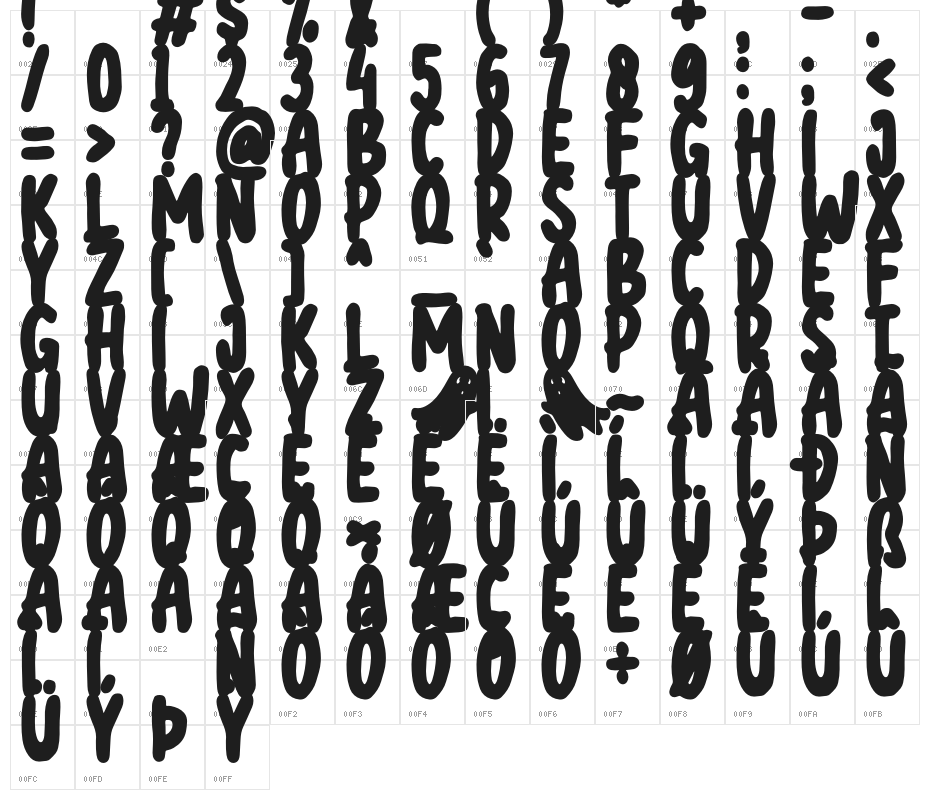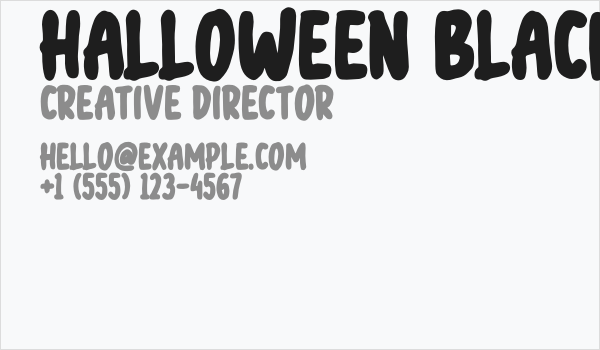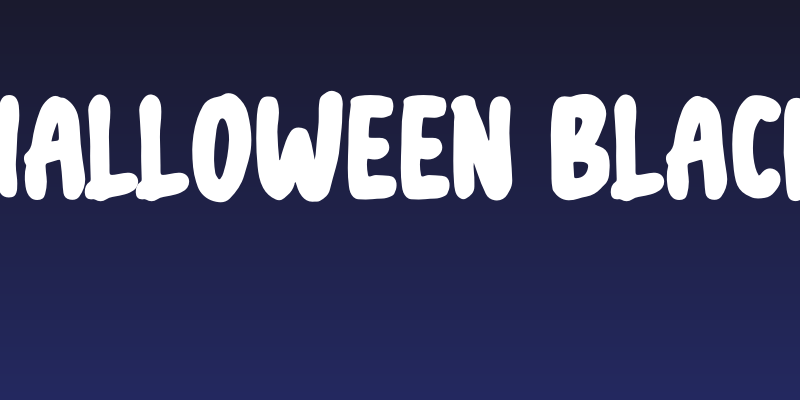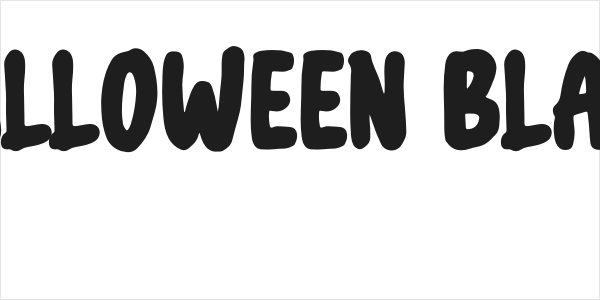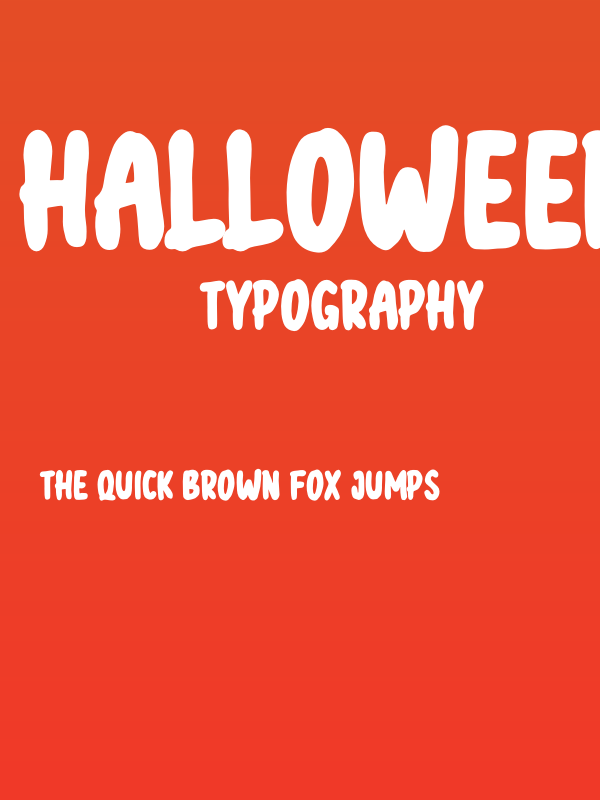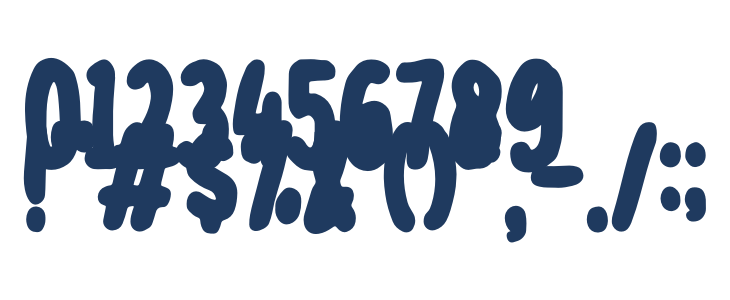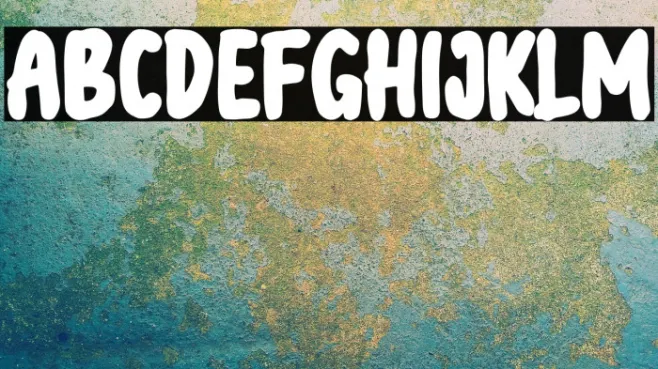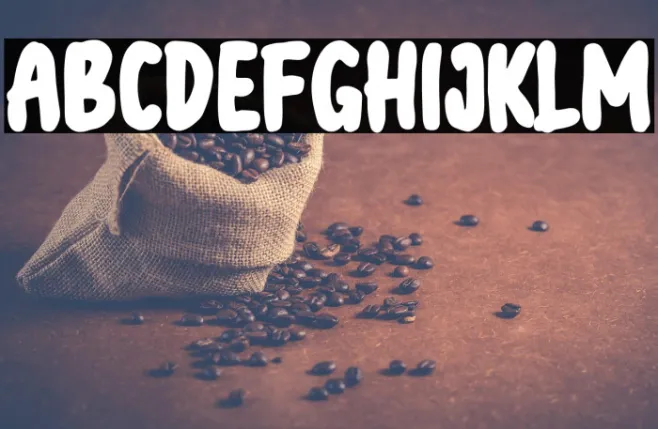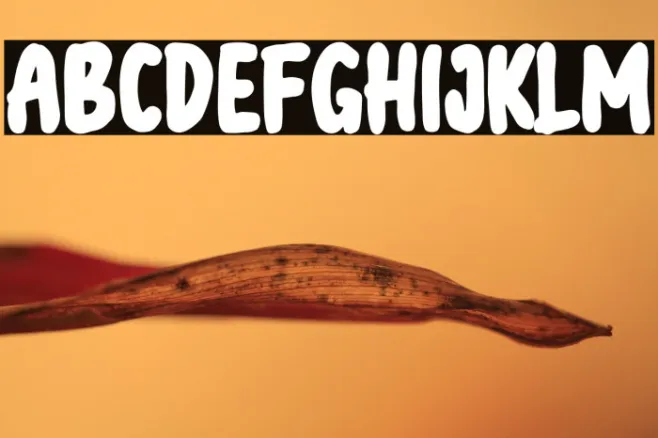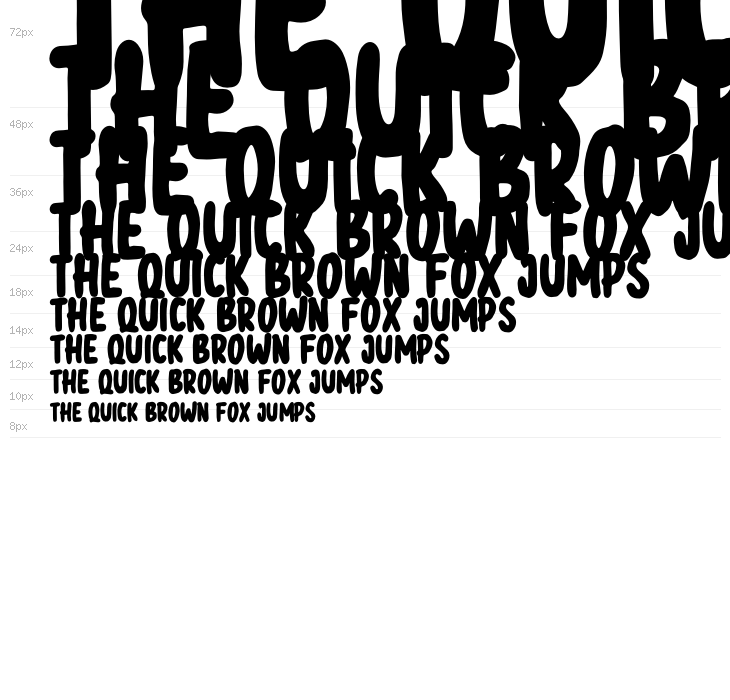
Halloween black Font
Halloween black Description
This font features bold, rounded characters with a playful and slightly spooky aesthetic, perfect for Halloween-themed designs. The letters are thick and uniform, with a hand-drawn feel that adds a touch of whimsy and character. The numbers and special characters maintain the same boldness and rounded style, ensuring consistency across all text elements. The overall look is both fun and striking, making it ideal for eye-catching headlines and creative projects.
| Proposed Projects | Ideal for Halloween-themed posters, party invitations, children's books, and playful branding. |